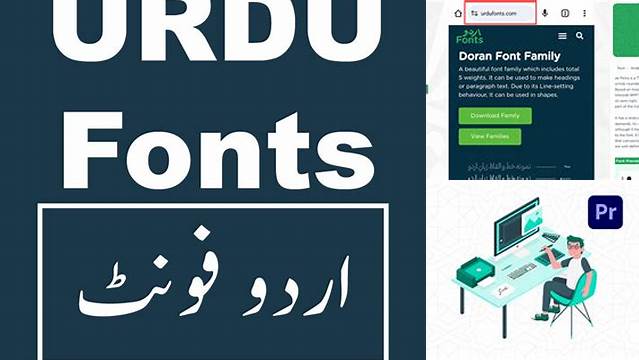
Urdu Fonts In Photoshop: A Designer's Guide
Introduction to Urdu Fonts in Photoshop
Urdu fonts in Photoshop are essential for designers and creators aiming to produce visually appealing and culturally relevant content for Urdu-speaking audiences. Using the right Urdu fonts ensures that your designs are not only aesthetically pleasing but also legible and respectful of the Urdu script's nuances. Selecting the right font can significantly enhance the overall impact of your work, whether you're designing posters, social media graphics, or website layouts. When integrating Urdu fonts into Photoshop, it’s crucial to consider various factors such as readability, style, and compatibility. Readability ensures that the text is easily understandable, while style contributes to the overall aesthetic appeal of the design. Compatibility guarantees that the font renders correctly across different platforms and devices. A well-chosen Urdu font can elevate your design, making it more engaging and effective for your target audience. For example, a classic font like Alvi Nastaleeq might be perfect for formal documents or traditional designs, while a more modern font could be used for contemporary projects. Ultimately, the goal is to select a font that not only complements the design but also enhances the message being conveyed.
To successfully use Urdu fonts in Photoshop, you also need to be aware of common issues such as character shaping and right-to-left text direction. Photoshop's text engine needs to be properly configured to handle these aspects of the Urdu script. This often involves adjusting settings related to text direction and character rendering to ensure that the text appears correctly. Additionally, understanding the nuances of Urdu calligraphy can help you make informed decisions when choosing a font. Different fonts have different calligraphic styles, and selecting one that aligns with the design's overall theme is essential. By paying attention to these details, you can create designs that are both visually stunning and culturally sensitive. This comprehensive approach ensures that your work resonates with the Urdu-speaking audience and effectively communicates your intended message. Whether you are a seasoned designer or just starting out, mastering the art of using Urdu fonts in Photoshop is a valuable skill that can significantly enhance your creative capabilities.
Configuring Photoshop for Urdu Text
Configuring Photoshop for Urdu text involves adjusting several settings to ensure the correct rendering of right-to-left scripts. By default, Photoshop is set up for left-to-right languages, so you'll need to make some changes to accommodate Urdu. The most important setting is the text engine option, which needs to be switched to a version that supports complex scripts. To do this, go to Edit > Preferences > Type (on Windows) or Photoshop CC > Preferences > Type (on macOS). In the Type preferences, change the "Choose Text Engine Options" to "Middle Eastern and South Asian." This setting enables Photoshop to correctly handle the right-to-left direction and character shaping required for Urdu text.
After changing the text engine option, restart Photoshop for the changes to take effect. Once restarted, create a new text layer and select an Urdu font. You'll notice that the text direction is now right-to-left. However, you may still need to adjust the paragraph settings to ensure proper alignment. Open the Paragraph panel (Window > Paragraph) and select the right-to-left paragraph direction option. This will ensure that the text flows correctly from right to left and that any punctuation marks are positioned correctly. Additionally, you can adjust the character spacing and kerning in the Character panel (Window > Character) to fine-tune the appearance of the text. Pay close attention to the shaping of individual characters and ensure that they connect properly. Some fonts may require manual adjustments to achieve the desired look. By carefully configuring these settings, you can optimize Photoshop for working with Urdu text and create designs that are both visually appealing and accurate. This configuration is crucial for avoiding common issues such as disconnected characters or incorrect text direction, ensuring a professional and polished final product. Taking the time to properly set up Photoshop for Urdu text will significantly improve your workflow and the quality of your designs.
When working with Urdu fonts in Photoshop, you might encounter several common issues. One of the most frequent problems is incorrect character rendering, where characters appear disconnected or in the wrong order. This usually happens when the text engine is not properly configured or when the font itself has issues. As mentioned earlier, ensure that the text engine option is set to "Middle Eastern and South Asian" in Photoshop's preferences. If the problem persists, try using a different Urdu font, as some fonts may have compatibility issues with certain versions of Photoshop. Another common issue is the text appearing mirrored or reversed. This typically occurs when the paragraph direction is not set correctly. Open the Paragraph panel and select the right-to-left paragraph direction option to fix this. Additionally, make sure that the text layer itself is set to right-to-left in the Character panel.
Sometimes, fonts may not appear in Photoshop even after they have been installed. This can be due to caching issues or problems with the font file itself. Restarting Photoshop and your computer can often resolve this issue. If the font still doesn't appear, try reinstalling it. Ensure that the font file is not corrupted and that it is in a supported format (TTF or OTF). Another troubleshooting step is to clear Photoshop's font cache. This can be done by deleting the Photoshop font cache file, which is usually located in the AppData folder on Windows or the Library folder on macOS. After deleting the cache file, restart Photoshop, and it will rebuild the font list. If you're still experiencing problems, consider updating Photoshop to the latest version, as updates often include bug fixes and improved font support. By systematically addressing these common issues and troubleshooting steps, you can ensure a smooth and efficient workflow when working with Urdu fonts in Photoshop. This proactive approach helps you overcome technical challenges and focus on creating high-quality designs.
Best Practices for Using Urdu Fonts in Design
To create effective and visually appealing designs with Urdu fonts, it's essential to follow some best practices. First and foremost, prioritize readability. Choose fonts that are clear and easy to read, especially for body text. Avoid using overly decorative or complex fonts for large blocks of text, as they can strain the reader's eyes. Instead, reserve these fonts for headlines or decorative elements. Pay attention to the font size and line spacing to ensure optimal readability. A good rule of thumb is to use a font size that is large enough to be easily readable without being too large and distracting.
Another important consideration is consistency. Use a limited number of fonts in your design to maintain a cohesive and professional look. Mixing too many fonts can create a cluttered and confusing design. Stick to two or three fonts at most, and use them consistently throughout your project. Also, consider the overall style and tone of your design. Choose fonts that complement the design's theme and convey the intended message. For example, a classic font like Alvi Nastaleeq might be appropriate for traditional or formal designs, while a more modern font could be used for contemporary projects. Be mindful of cultural sensitivities when using Urdu fonts. Ensure that the text is grammatically correct and that the font is appropriate for the context. Avoid using fonts that might be considered disrespectful or offensive. Finally, always test your designs on different devices and platforms to ensure that the fonts render correctly. This is especially important for web designs, as different browsers and operating systems may handle fonts differently. By following these best practices, you can create designs with Urdu fonts that are both visually stunning and culturally sensitive, effectively communicating your message to your target audience. This thoughtful approach ensures that your work is well-received and achieves its intended impact.